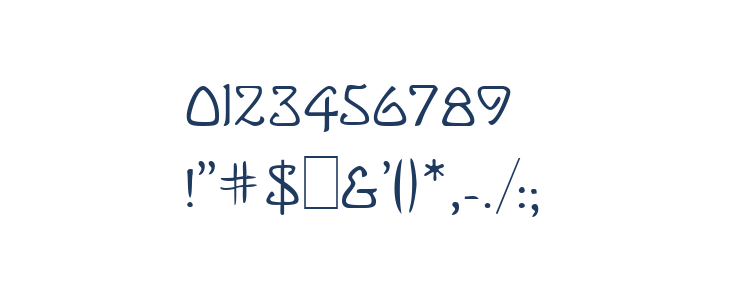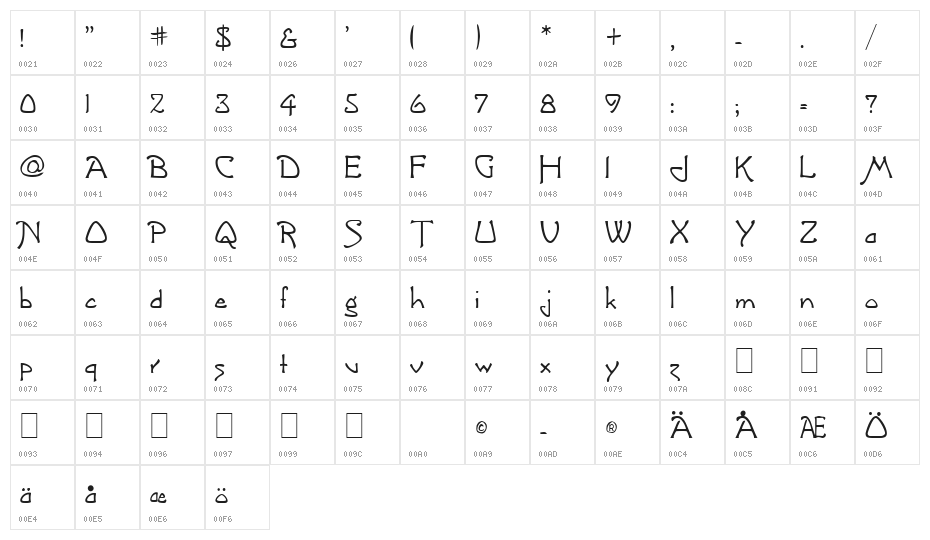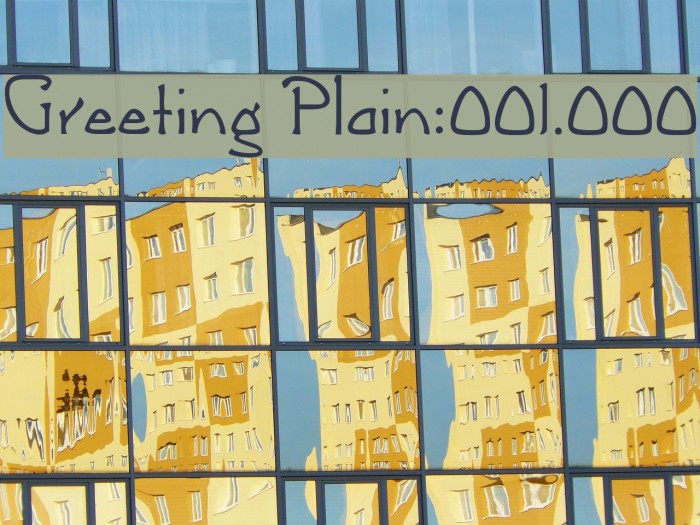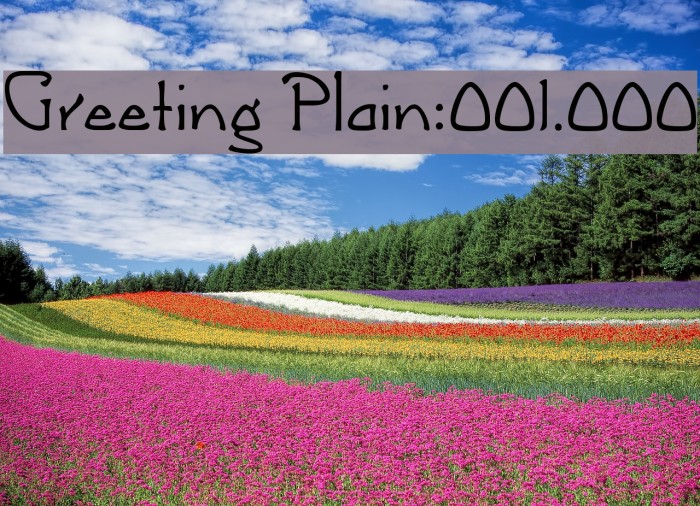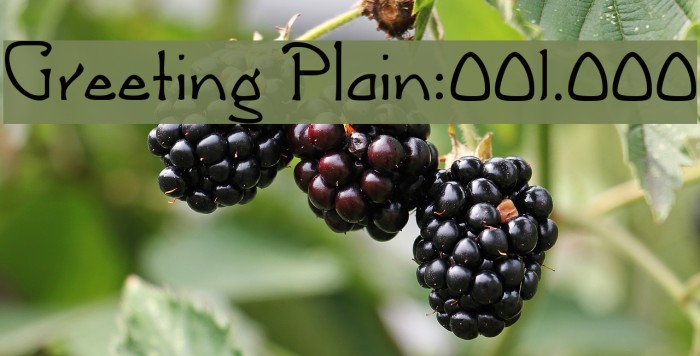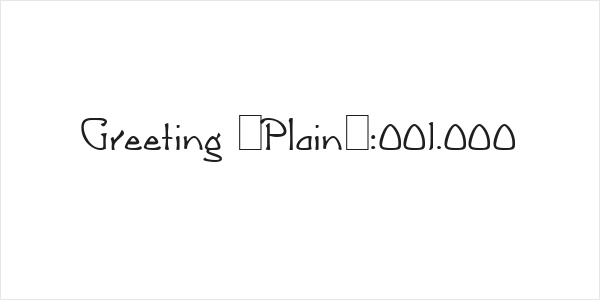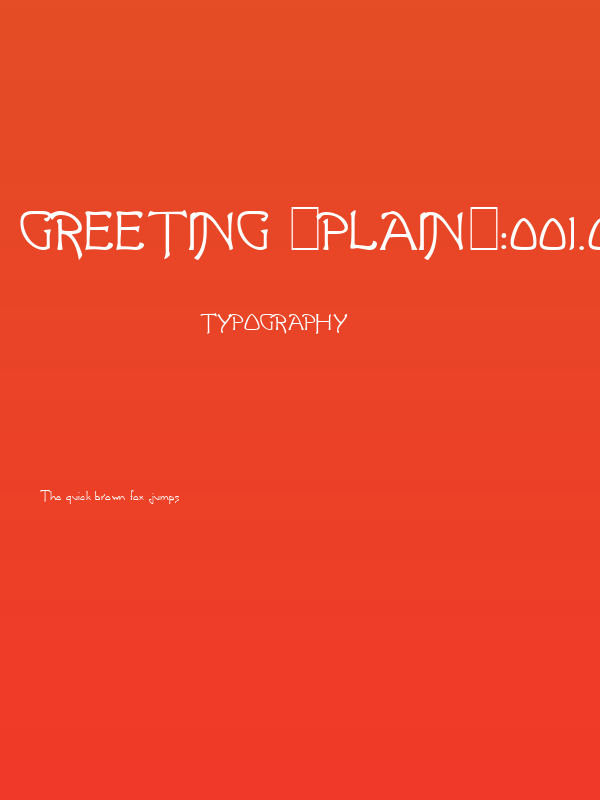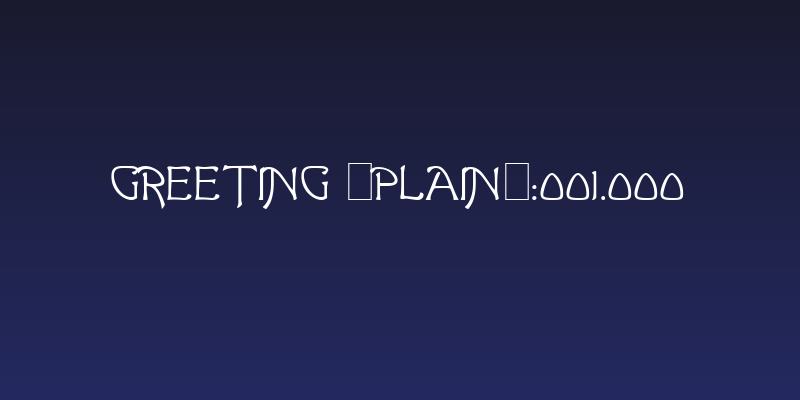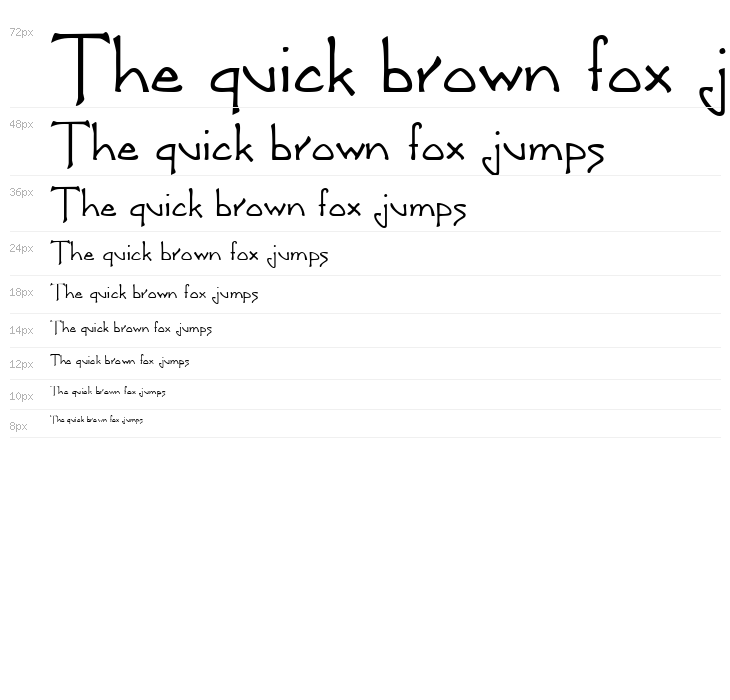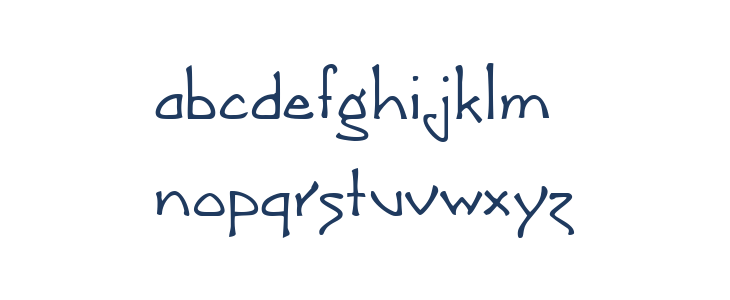
Greeting [Plain]:001.000 Font
Greeting [Plain]:001.000 Description
This font features a unique and artistic design with a hand-drawn appearance. The uppercase letters are characterized by their angular and slightly irregular shapes, giving them a playful yet sophisticated look. The lowercase letters maintain a similar style, with some characters having distinctive loops and curves that add to the font's charm. The numbers are consistent with the overall design, featuring a mix of straight and curved lines. Special characters are creatively designed, maintaining the font's artistic flair. This font's overall style is both decorative and modern, making it suitable for a variety of creative projects.